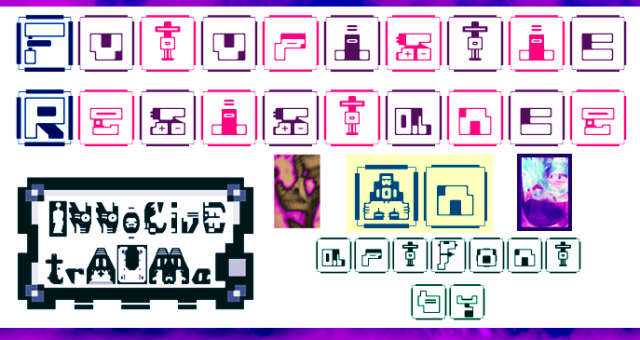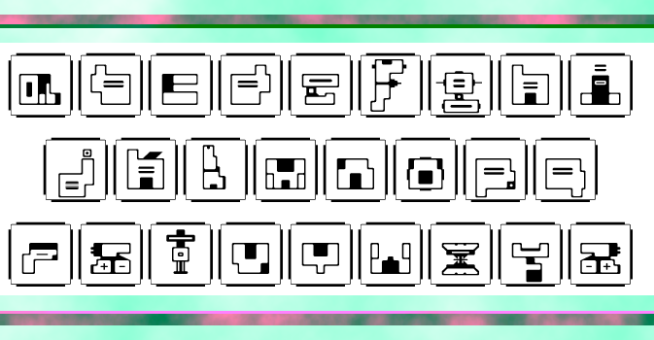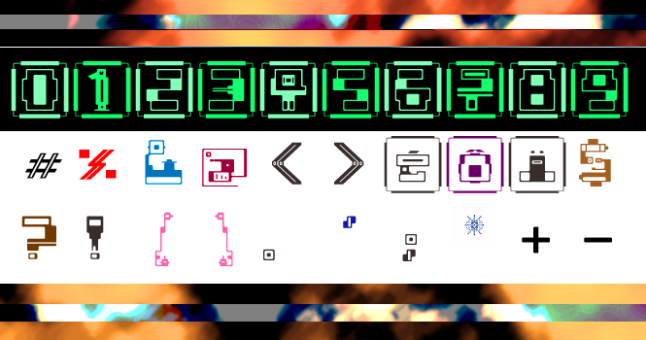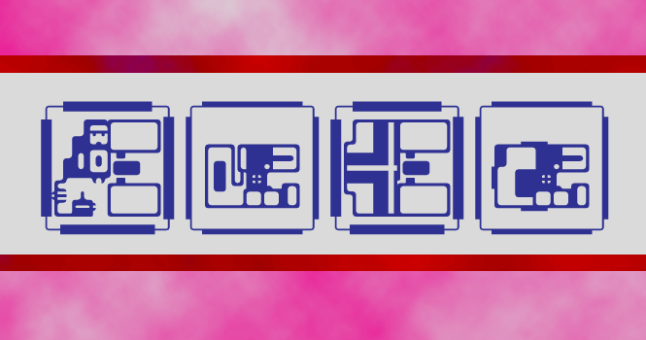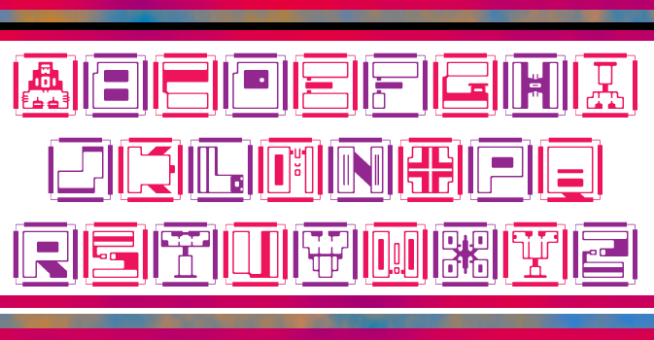
trAUMa 32 / Futuristic Resistance
"Futuristic Resistance", like all the "trAUMa" series, works at the frontier between Art & Type Design, Figuration & Abstraction, each font is a comprehensive world in which every glyph is a "living" entity. But put together they can produce your messages in the most accurate way.